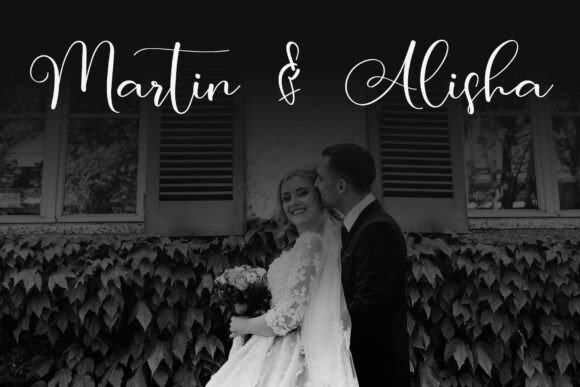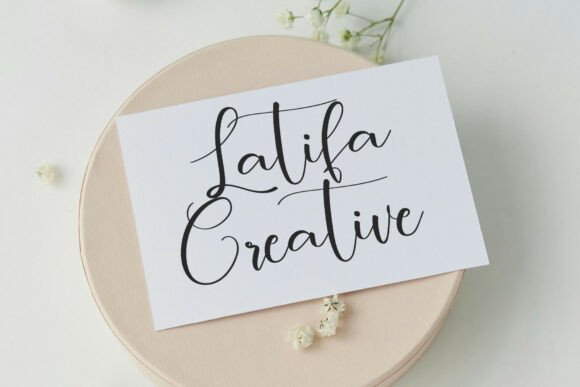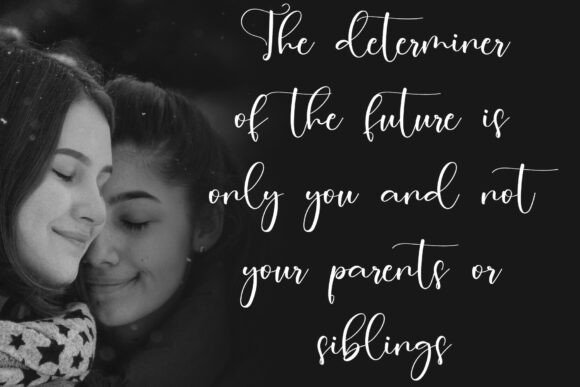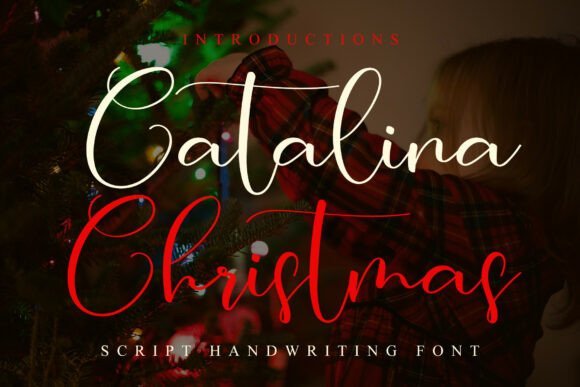
Introduction to Catalina Christmas Font
Catalina Christmas is a font that exudes class, combining the beauty of script handwriting with a bold and timeless vintage touch.
With its fluid strokes, graceful curves, and dynamic flow, this font is perfect for creating a sophisticated yet powerful impression Whether you need a stylish signature, branding design, or nostalgic vintage aesthetics, Realistic Vintage delivers elegance and uniqueness effortlessly.
Key Features of Catalina Christmas Font
Why Choose Catalina Christmas Font?
Catalina Christmas Font offers exceptional quality and versatility, making it a valuable addition to your design toolkit. Whether you’re creating for personal projects or commercial use, Catalina Christmas Font delivers professional results.